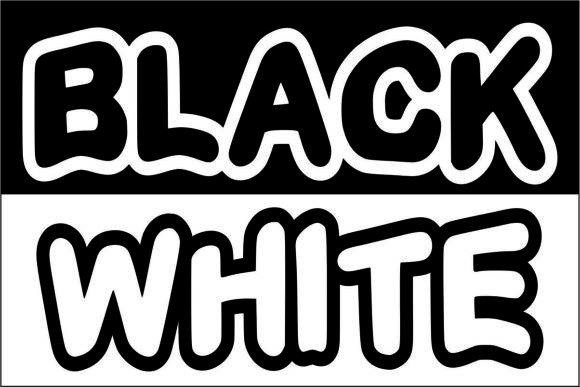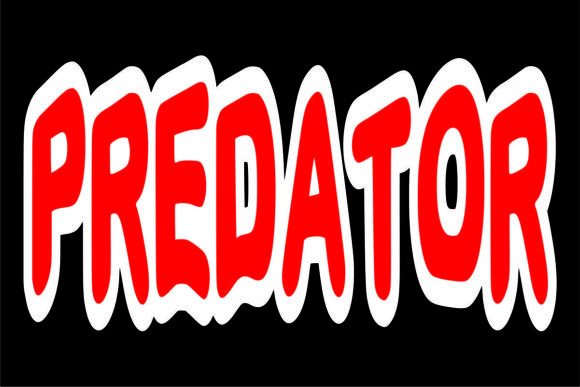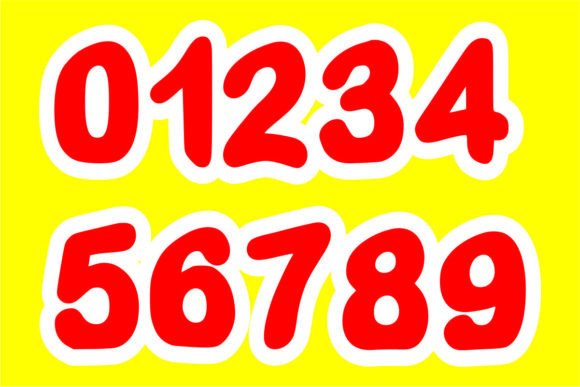
Introduction to Rikwes Font
Rikwes is a childish and cute display font.
Its informal and casual style makes it a top choice for any kid’s world creation It will look cool on visual designs and works such as product packaging, labels, logos, and more.
Key Features of Rikwes Font